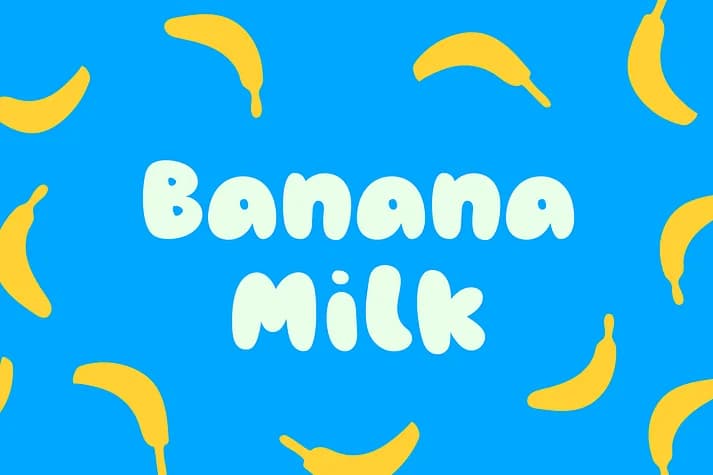
This typeface hits that sweet spot between playful and bold. Banana Milk, designed by wearecolt, captures the hand-lettered charm of coffee shop chalkboards in a chunky, rounded display font built for commanding the page whenever personality and character matter.
The hefty letterforms and organic geometry shine on cafe menu signage, vintage ice cream shop packaging, children's picture book covers, and playroom wall decals where warmth and approachability matter most. Its unpretentious, hand-lettered stroke variation gives everything that homemade quality without looking amateurish, so it works equally well anchoring a casual brand identity as it does decorating invitation suites or gift packaging. The font reads friendly and inviting no matter the context, making it a go-to choice for restaurateurs, children's product designers, and anyone creating work that needs a human touch over sterile precision.
Banana Milk Font is a decorative font that shines as a display or heading face. Pair it with a clean sans-serif or serif font for body text β the contrast creates a clear hierarchy while the two styles stay balanced and easy to read.